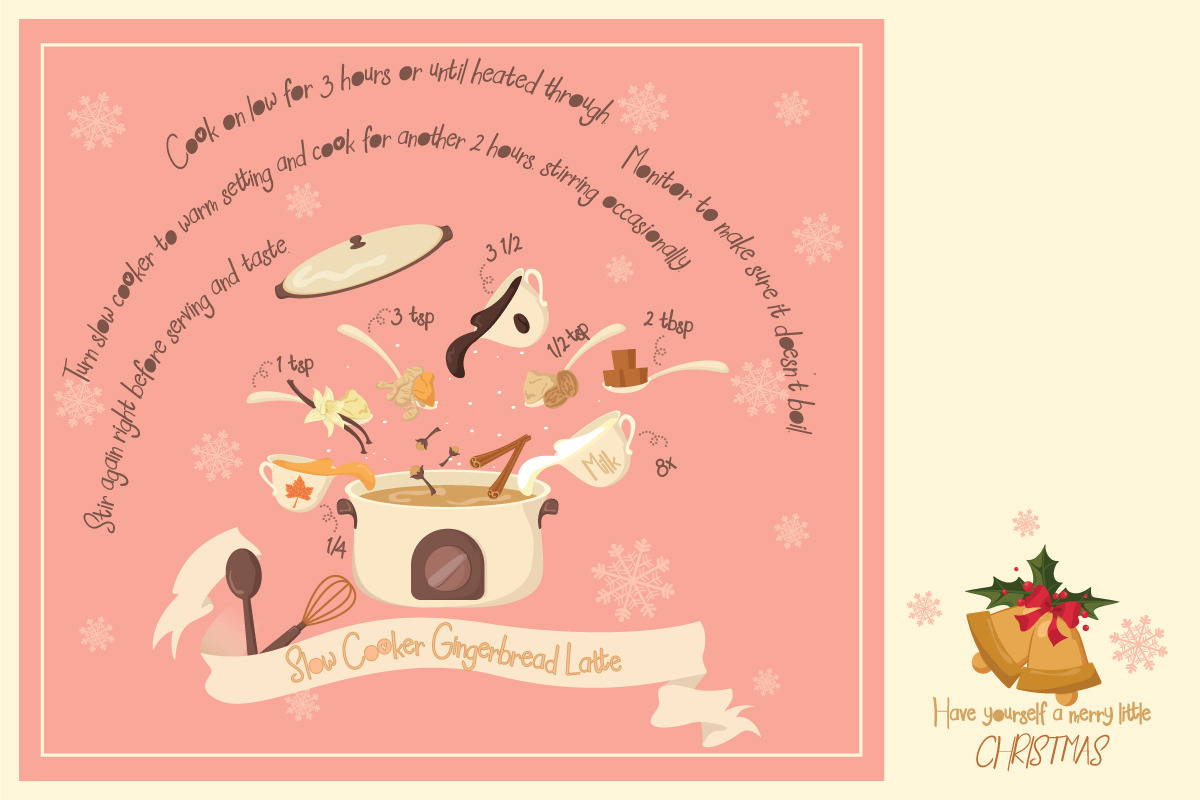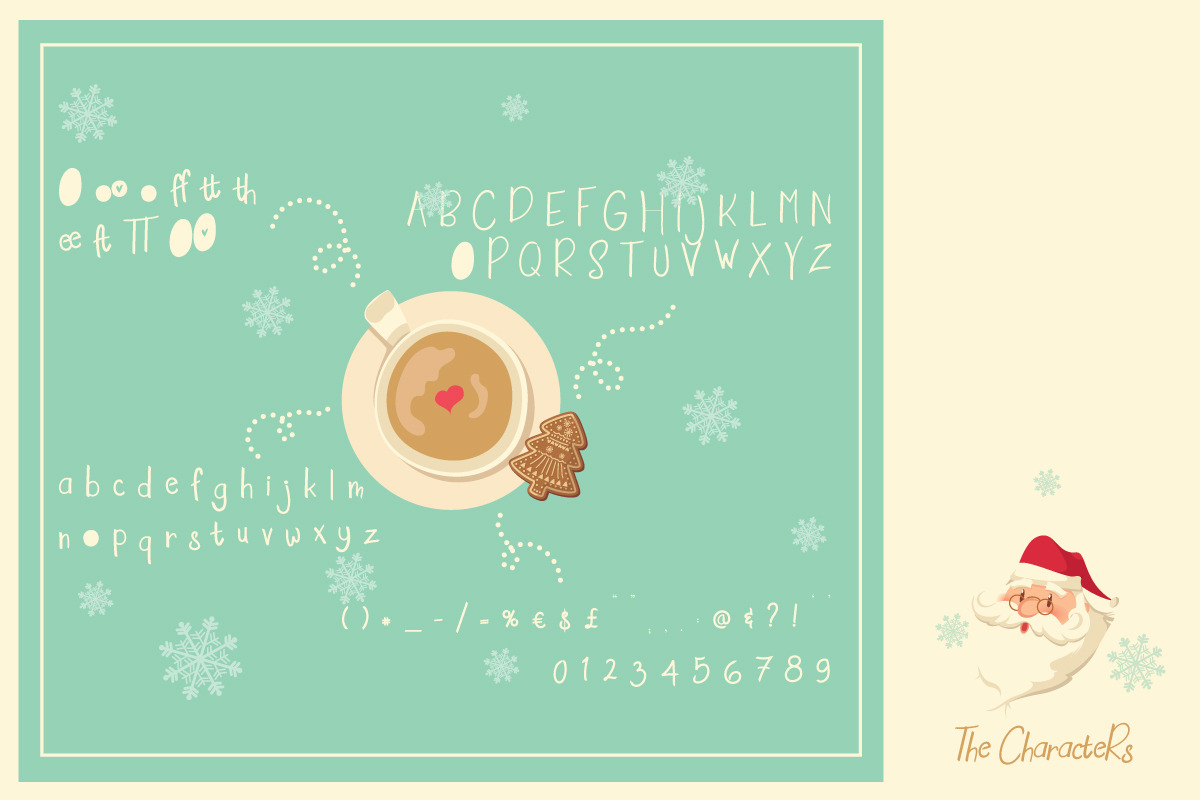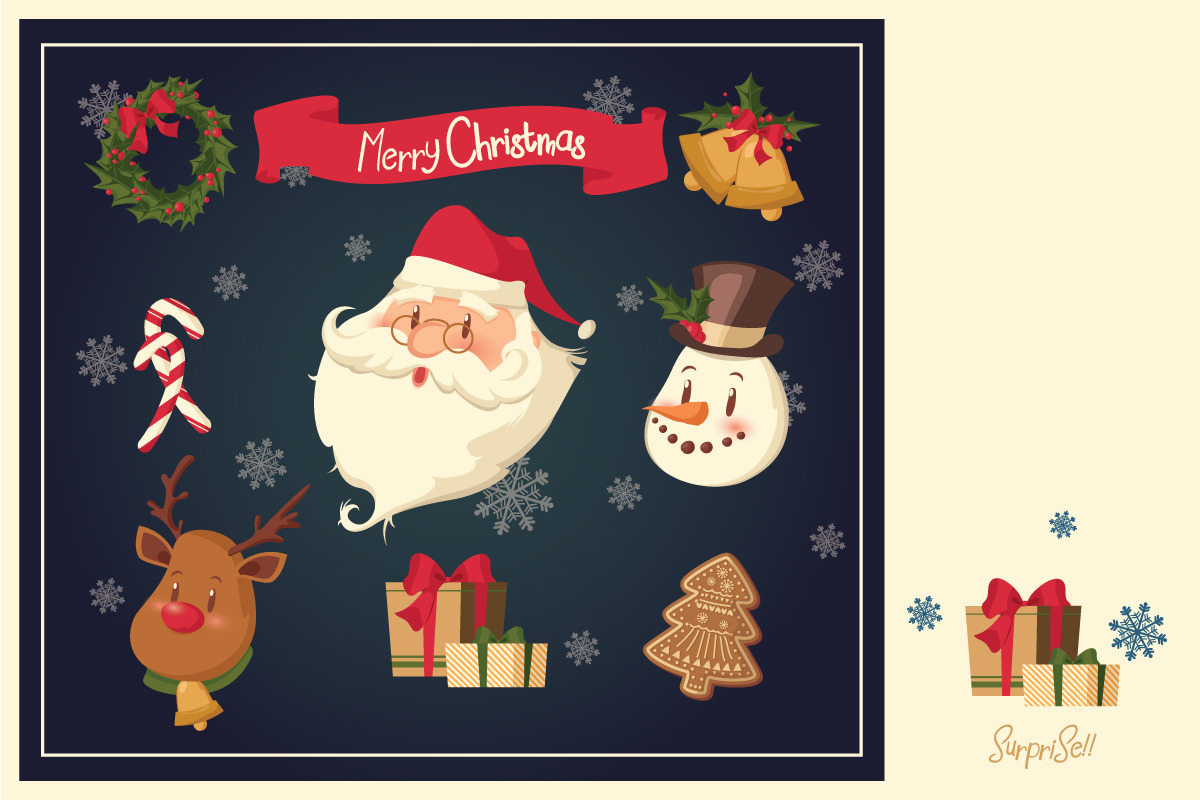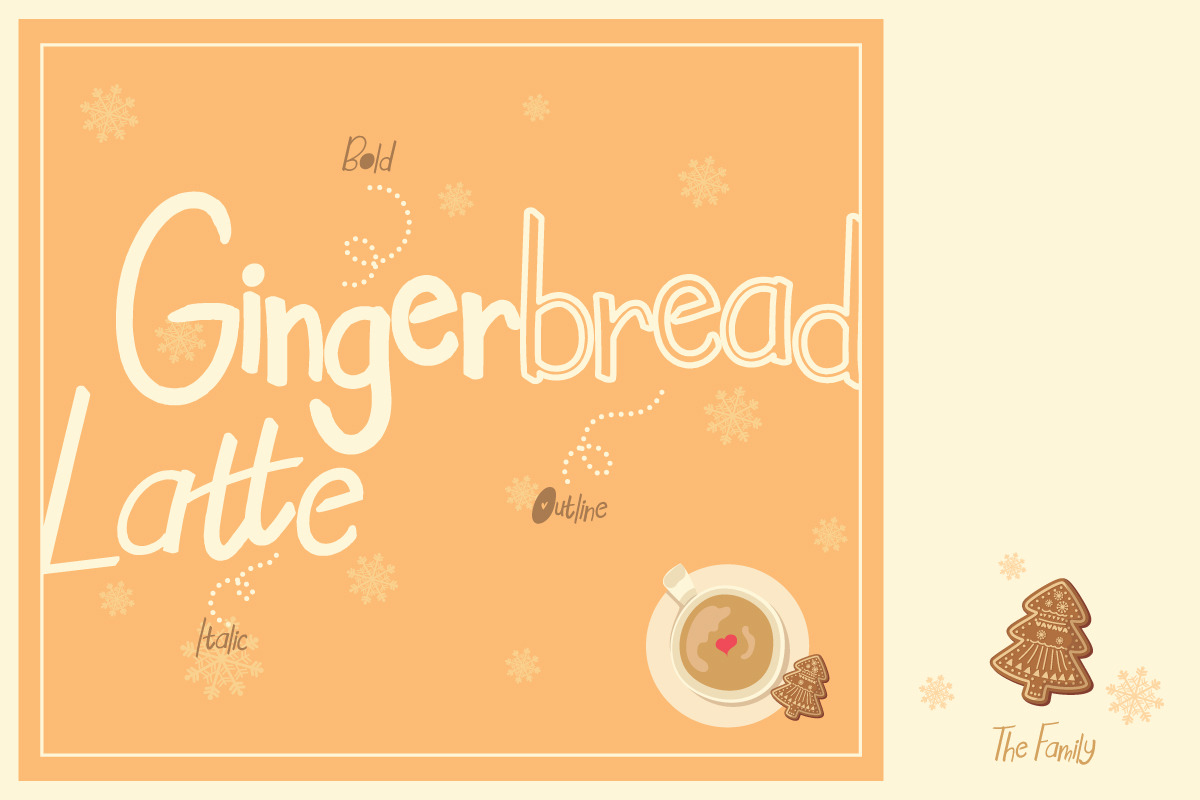
Gingerbread Latte
Gingerbread Latte a new fresh & modern handwritting with a handmade style, decorative characters, and full of happines.
They are perfect to use for: logos, branding, home decor, signs, mugs, shirts, pantry labels, stickers, greeting cards, posters, social media, planner prints, and etc. Just have a great fun with Gingerbread Latte on your design!
- Gingerbread Latte (uppercase, lowercase, numeric, symbols, punctuation, ligature characters)
- Gingerbread Latte Bold (uppercase, lowercase, numeric, symbols, punctuation, ligature characters)
- Gingerbread Latte Outline (uppercase, lowercase, numeric, symbols, punctuation, ligature characters)
- Gingerbread Latte Italic (uppercase, lowercase, numeric, symbols, punctuation, ligature characters)